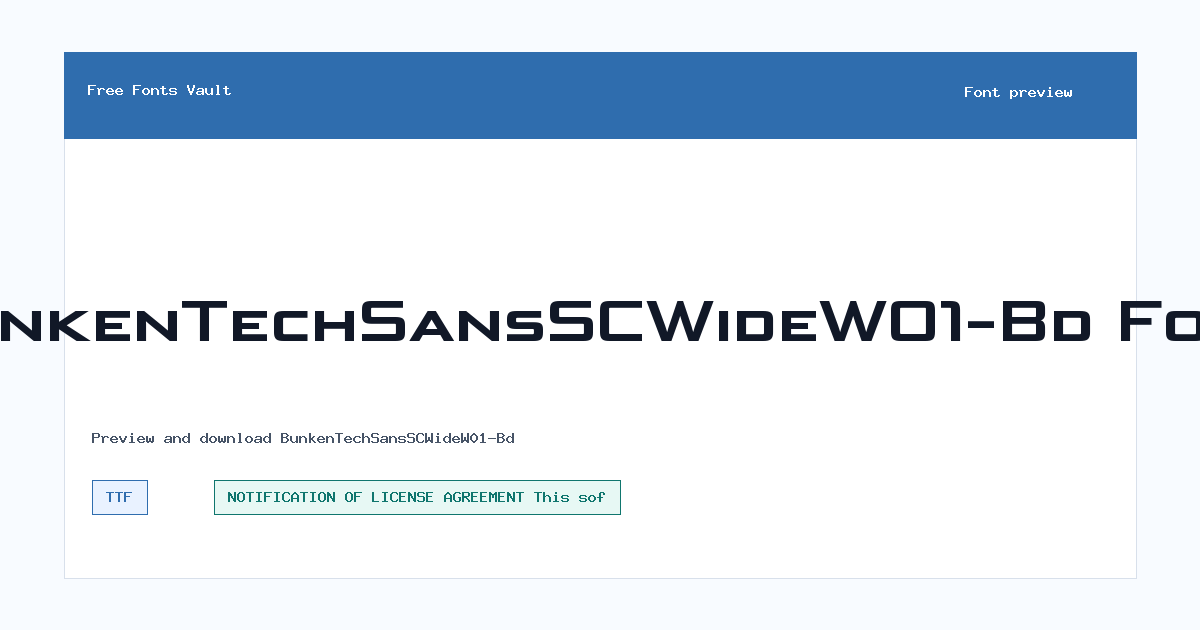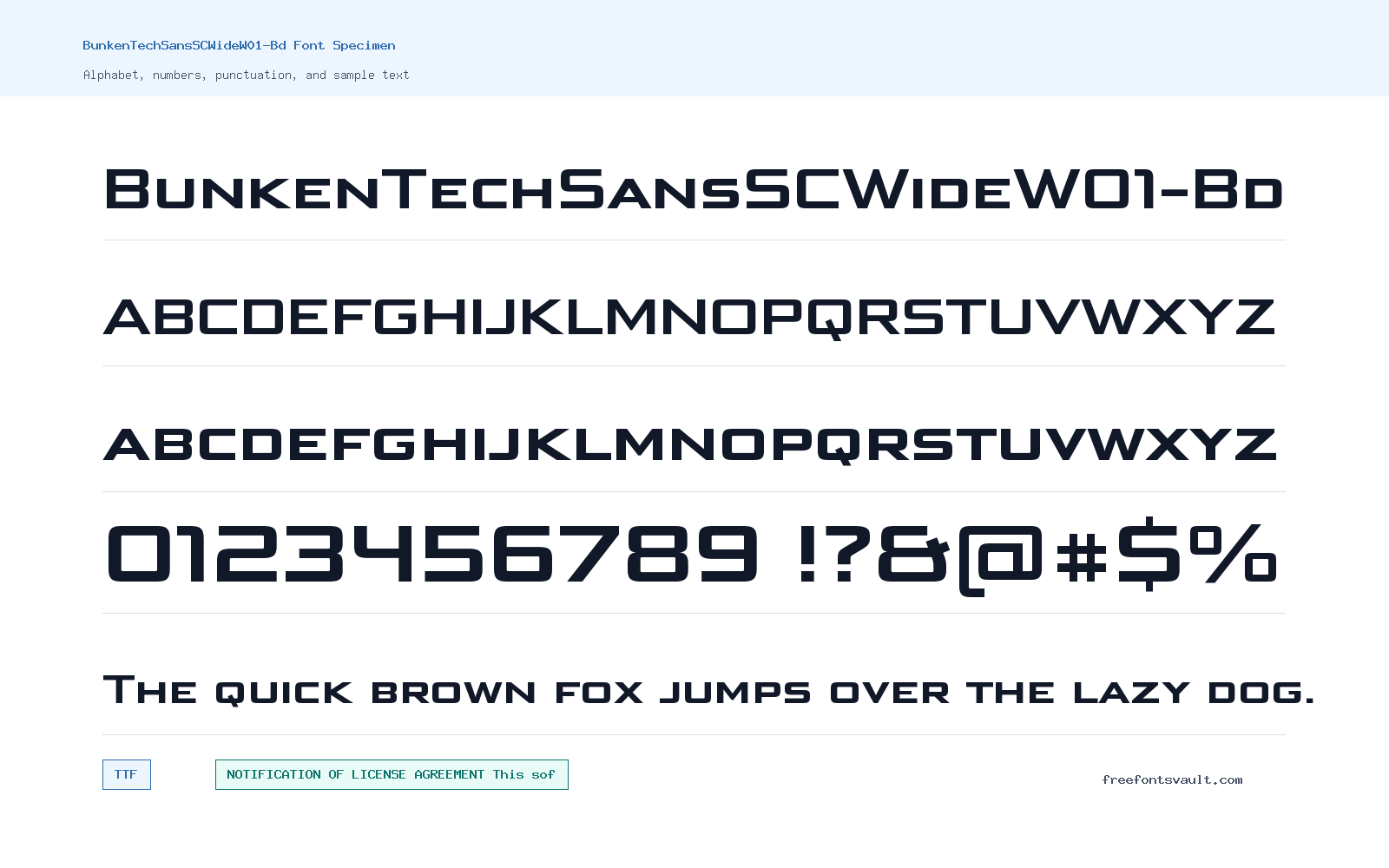
BunkenTechSansSCWideW01-Bd
BunkenTechSansSCWideW01-Bd font preview showing the family name
BunkenTechSansSCWideW01-Bd Font
BunkenTechSansSCWideW01-Bd font specimen showing alphabet, numbers, and sample text
BunkenTechSansSCWideW01-Bd font.
BunkenTechSansSCWideW01-Bd is a wide technical sans font from Buntype. The name points to a bold, engineered display style, so it is best tested in headings, labels, title cards, interface mockups, and short branding experiments.
About BunkenTechSansSCWideW01-Bd Font
The wide Tech Sans naming gives this font a structured, industrial feel. It can help short words look firm and deliberate, especially in technology layouts, product mockups, control panels, data-themed graphics, or poster headings where a broader sans shape fits the mood.
This is not a font to drop blindly into body copy. Use it when the typography itself should feel technical or architectural, then pair it with a plainer reading font for longer explanations. That keeps the visual tone strong without making the whole page feel cramped or overly mechanical.
• Wide sans-style design suited to technical and structured display text
• Bold naming suggests a stronger cut for headings and labels
• Useful for uppercase words, product codes, and interface-style mockups
• Best for short text where width and structure are part of the look
• Technology headings and product title cards
• Banners, short labels, and UI-inspired mockups
• Industrial branding studies and wordmark experiments
• Poster layouts that need a wide engineered sans voice
• Model numbers, codes, and compact display phrases
BunkenTechSansSCWideW01-Bd is credited to Ralf Sander and Petra Niedernolte and published by Buntype. If you use the font under a proper license, keep the Buntype credit and license terms with your project records.
Who designed BunkenTechSansSCWideW01-Bd?
The font is credited to Ralf Sander and Petra Niedernolte and published by Buntype.
What is this font good for?
It is most useful in short, wide text settings such as headings, banners, labels, tech layouts, and interface-style mockups.